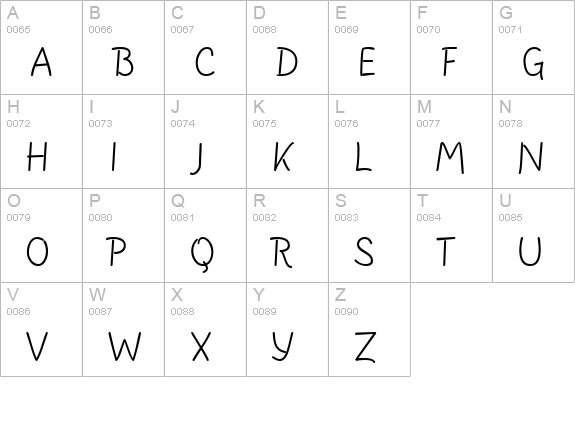
SusiScript Plain Font Details
SusiScript Plain font is a charming and versatile typeface that offers a handwritten touch to any design project. Its smooth and flowing characters exude a sense of elegance and creativity, making it perfect for various applications such as branding, invitations, logos, and more. This font is the perfect choice for those looking to add a personal touch to their designs. With its clean lines and simple yet stylish appearance, SusiScript Plain font brings a sense of warmth and personality to any project. Best of all, SusiScript Plain font is available for free download at FontsMarket.com. This means you can easily access this beautiful typeface and incorporate it into your designs without any cost. Don't miss out on the opportunity to enhance your projects with the unique charm of SusiScript Plain font!